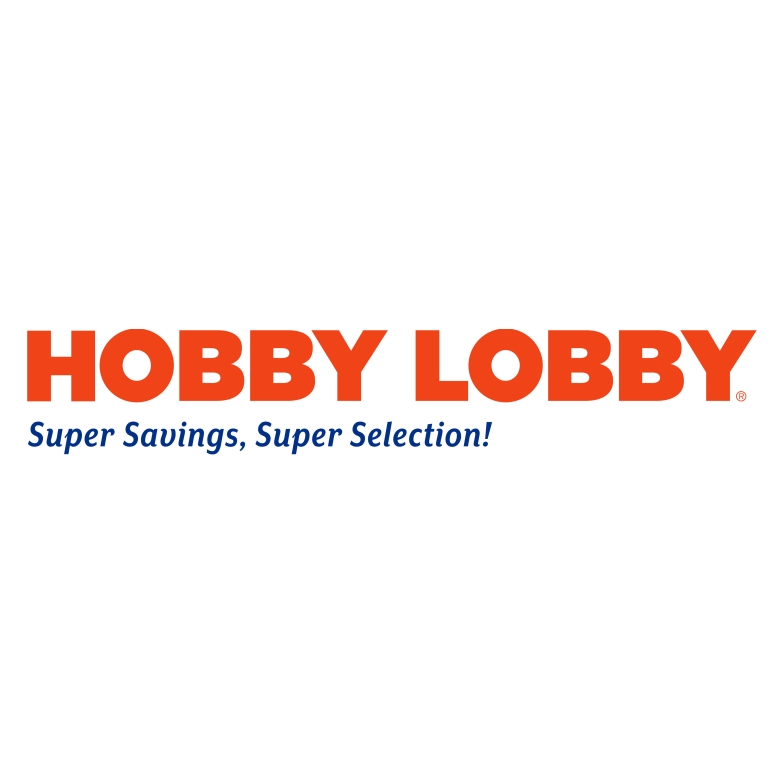
Hobby Lobby Logo Font
Fonts in UseHobby Lobby is an American arts and crafts retail company that sells a wide variety of crafting materials, home decor, and seasonal decorations.
The current Hobby Lobby logo, which debuted in 2015, features the Gotham Ultra typeface, with the tagline in Mrs Eaves Sans Italic.
In contrast, the previous logo used Antique Olive Compact, a humanist sans-serif font created by French typographer Roger Excoffon.